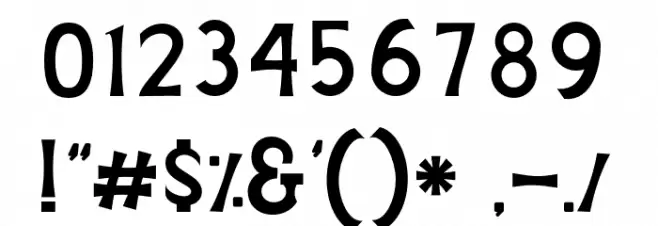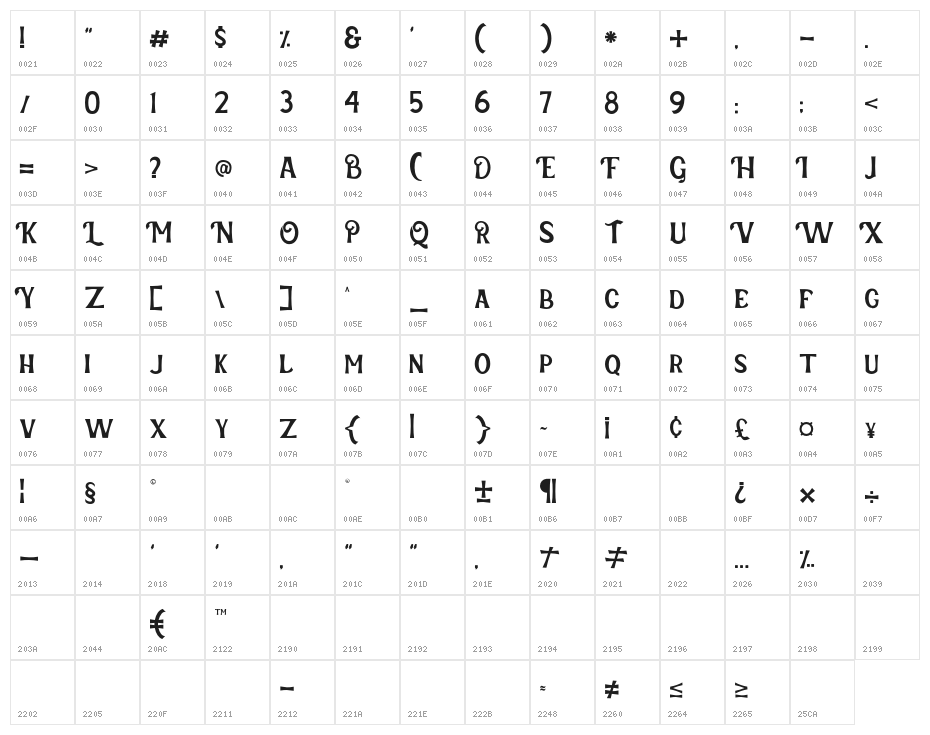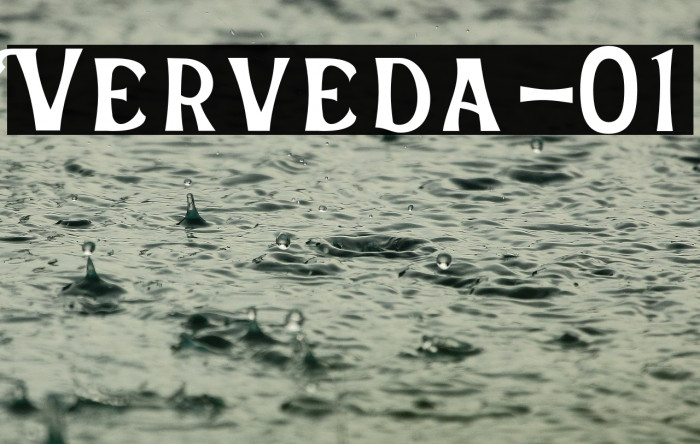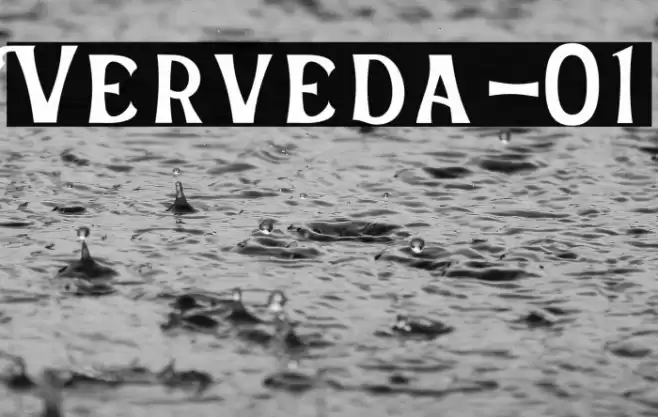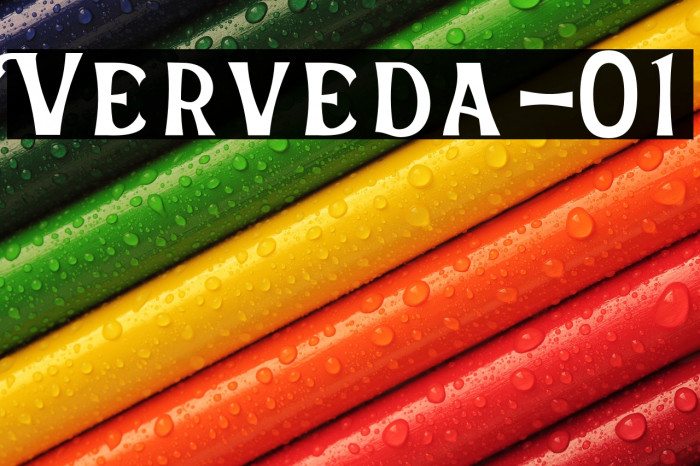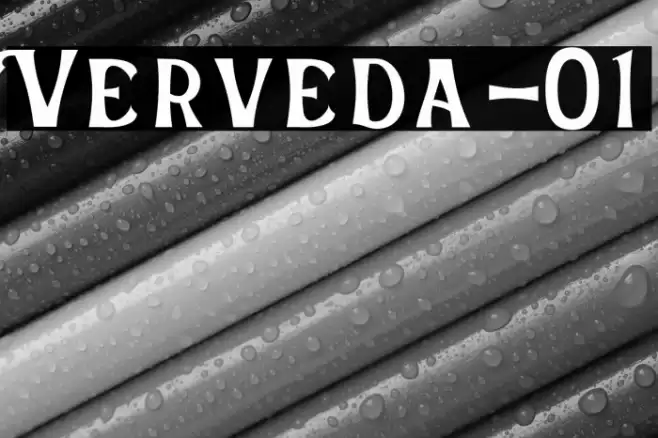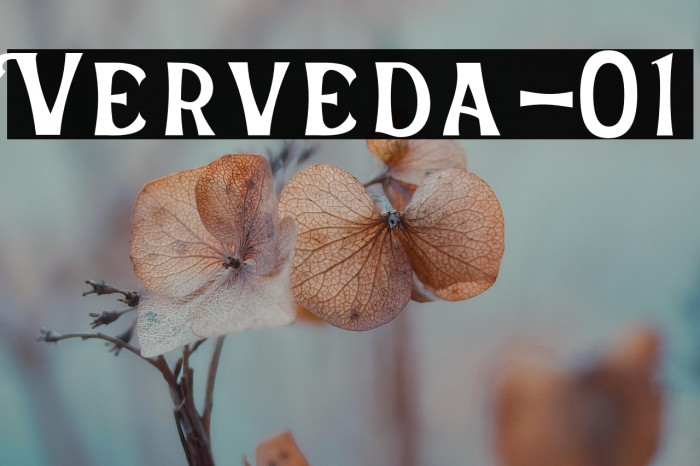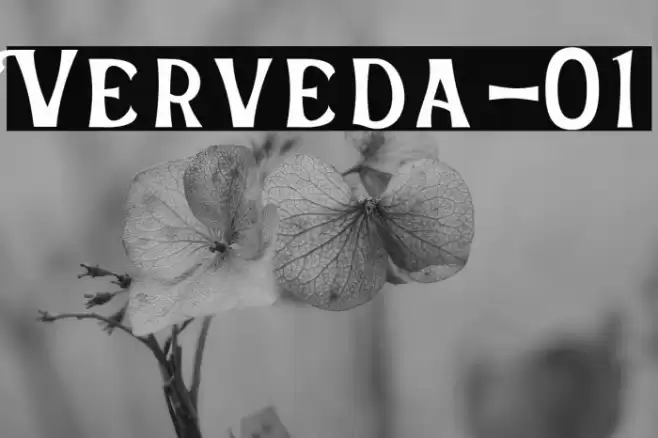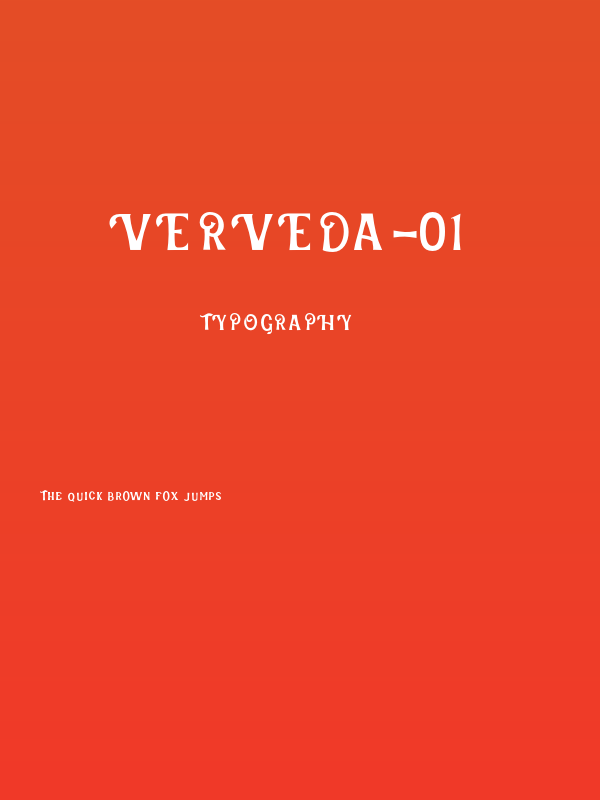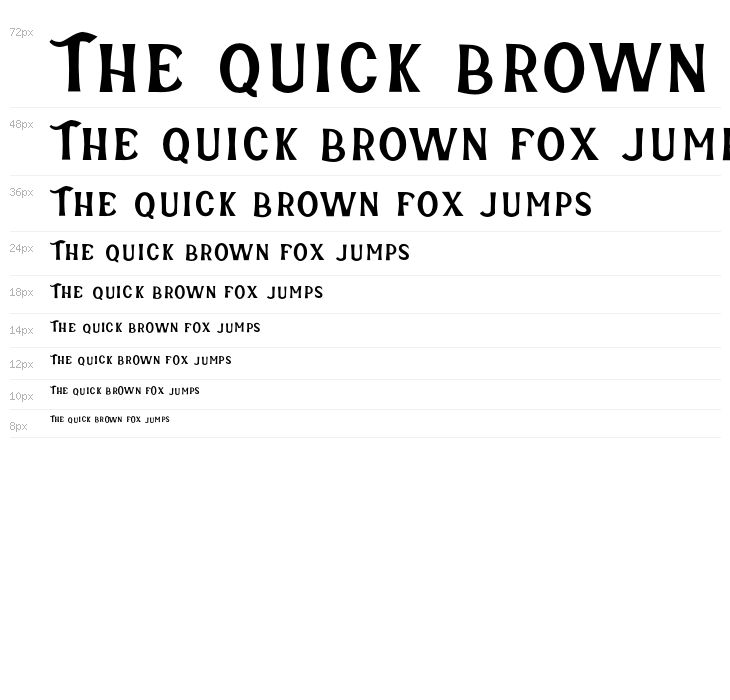
Verveda-01 Font
Verveda-01 Description
This font features a unique blend of classic and decorative elements, characterized by its bold and slightly whimsical letterforms. The uppercase letters have a distinct flair, with some characters featuring subtle curves and serifs that add a touch of elegance. The lowercase letters maintain a consistent style, complementing the uppercase with their own decorative touches. The numerals are clear and bold, ensuring readability while maintaining the font's overall aesthetic. Special characters are thoughtfully designed, fitting seamlessly with the rest of the character set. This font's playful yet sophisticated style makes it suitable for a variety of creative projects.